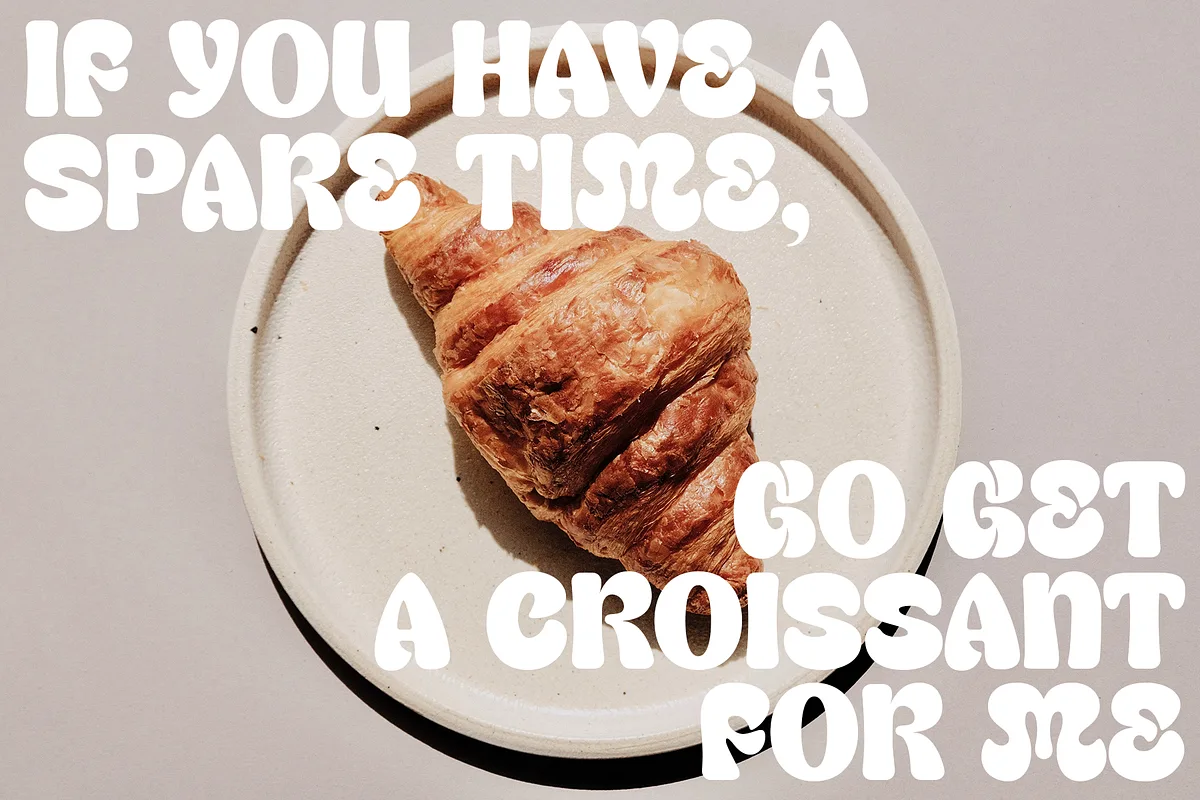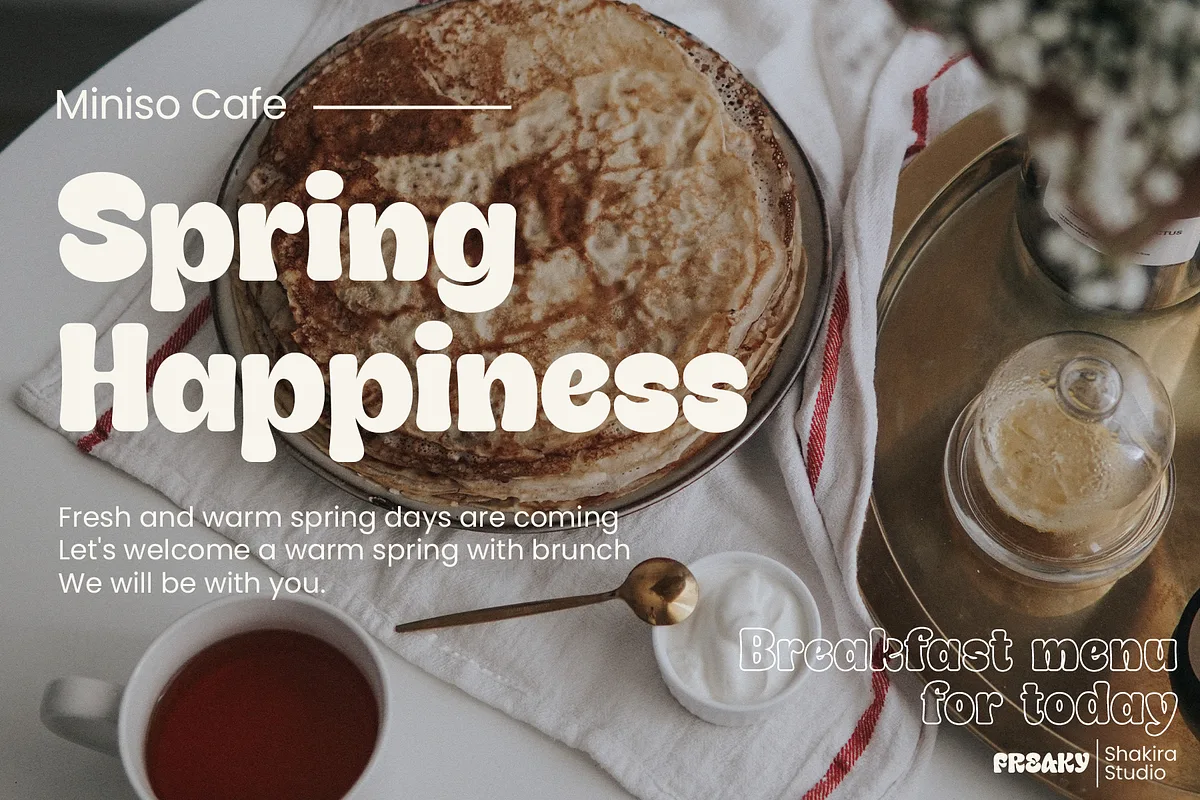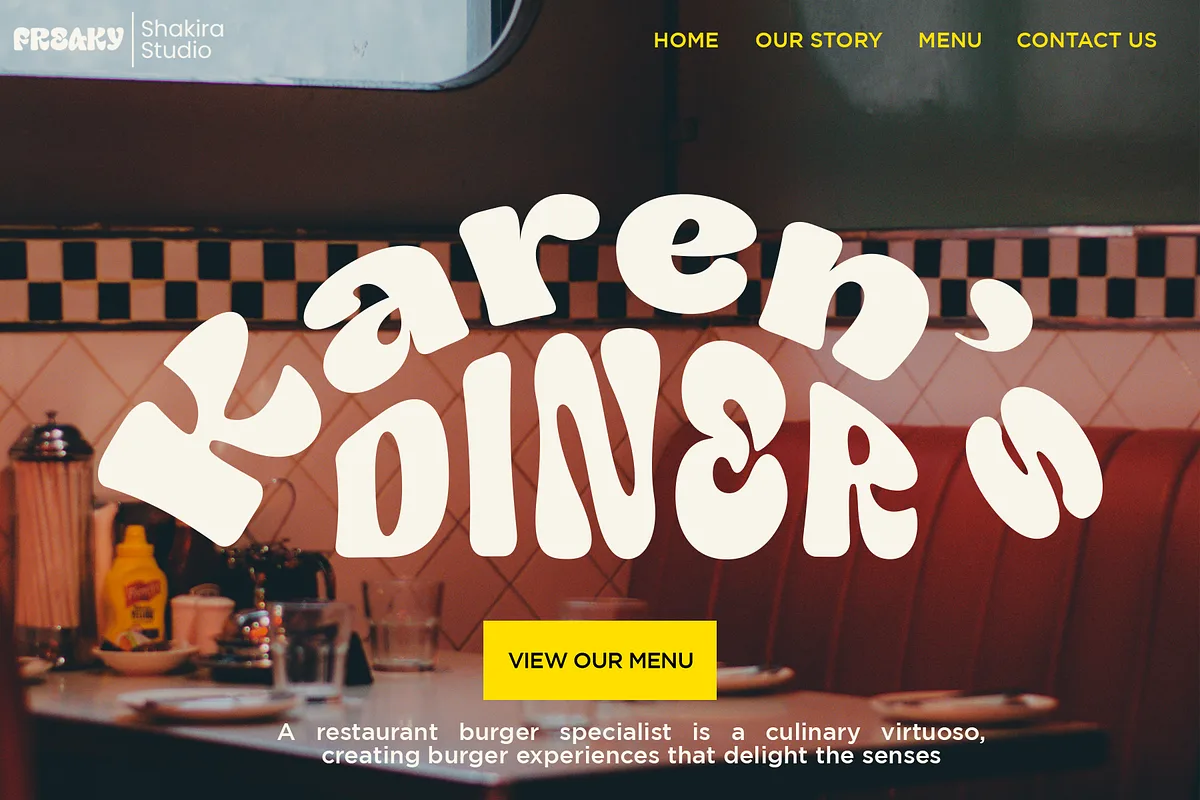
Freaky is a unique display serif font with two versions, regular and outline. Specially designed to create a striking and eccentric look in a variety of design projects. It is a great choice for design projects that require a unique and striking visual identity. From bold branding to creative t-shirt designs, this font will add an unforgettable visual touch to any design medium you use.
- Unique letterforms